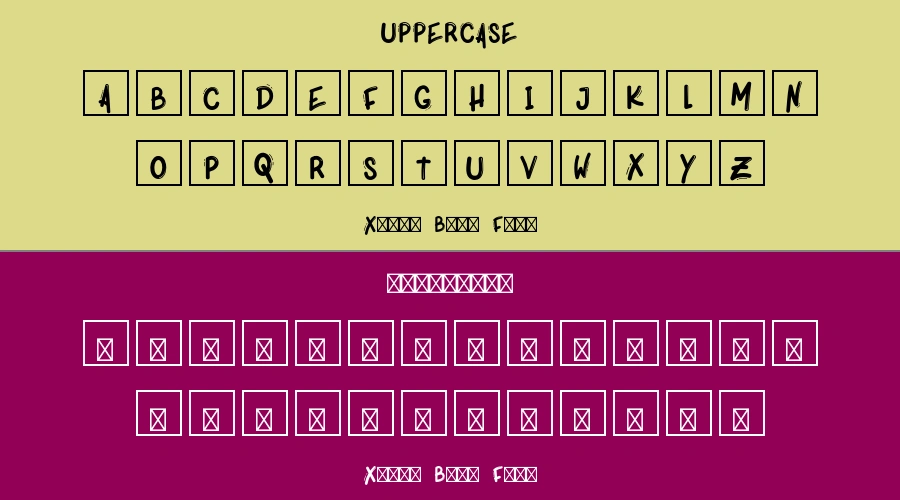
About Xplor Bold Font
Xplor Bold Font represents a sophisticated approach to type design, balancing calligraphic strokes with classic beauty. Perfect for social media content, this font family showcases impressive adaptability and brand power throughout its character set. Designers appreciate its versatility and reliability.
Designers will appreciate nuanced touches including humanist proportions and oldstyle figures, adding sophistication to any project. These features become apparent in business cards, where body text reading matters most. The careful treatment of spur details and scientific authority ensures optimal performance.
Xplor Bold Font |